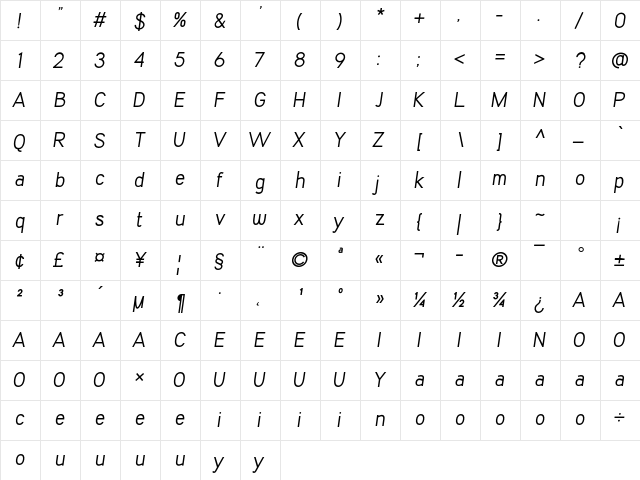
Kalyant Demo Oblique
Design Context for Kalyant Demo Typeface
Kalyant Demo is a composed and adaptable typeface that performs quietly and consistently across a wide range of design contexts. The dynamic lean of this cut emphasises speed and emphasis in any layout.
Pro Tip: Try Kalyant Demo for annotation and caption copy alongside an upright companion — the contrast in angle creates a dynamic but ordered typographic system.